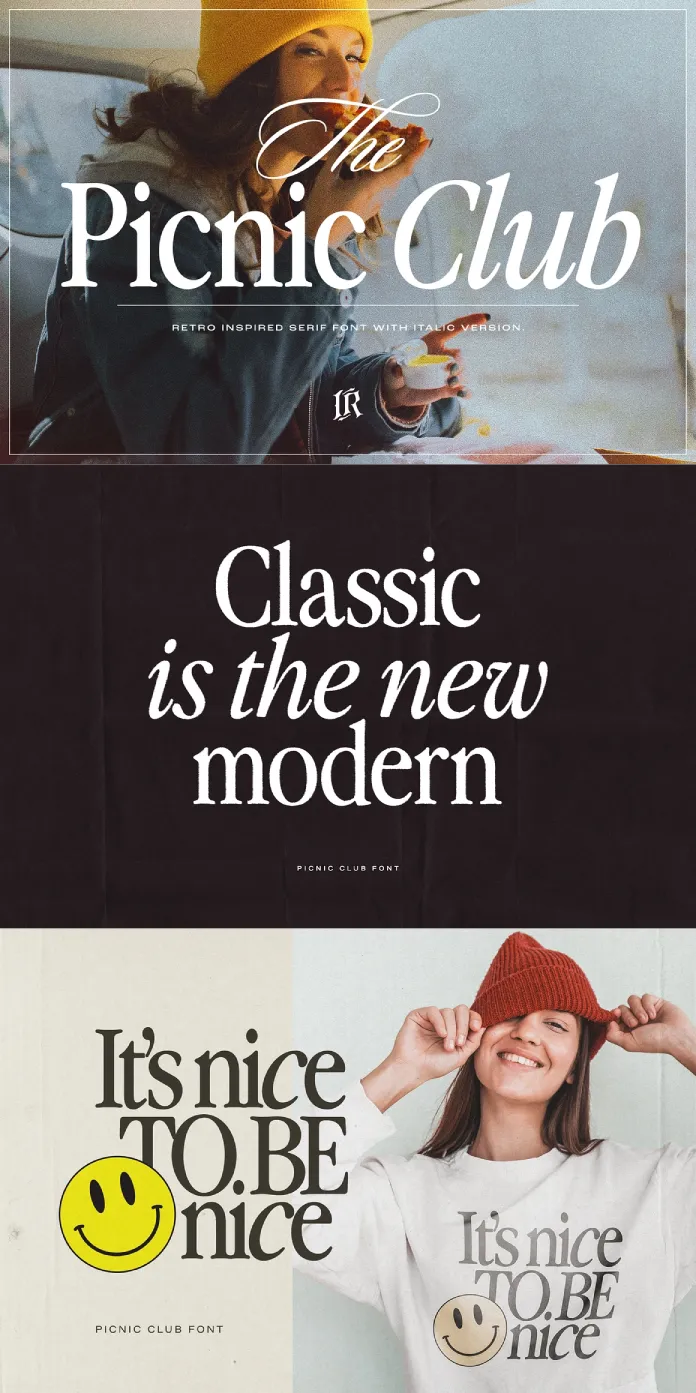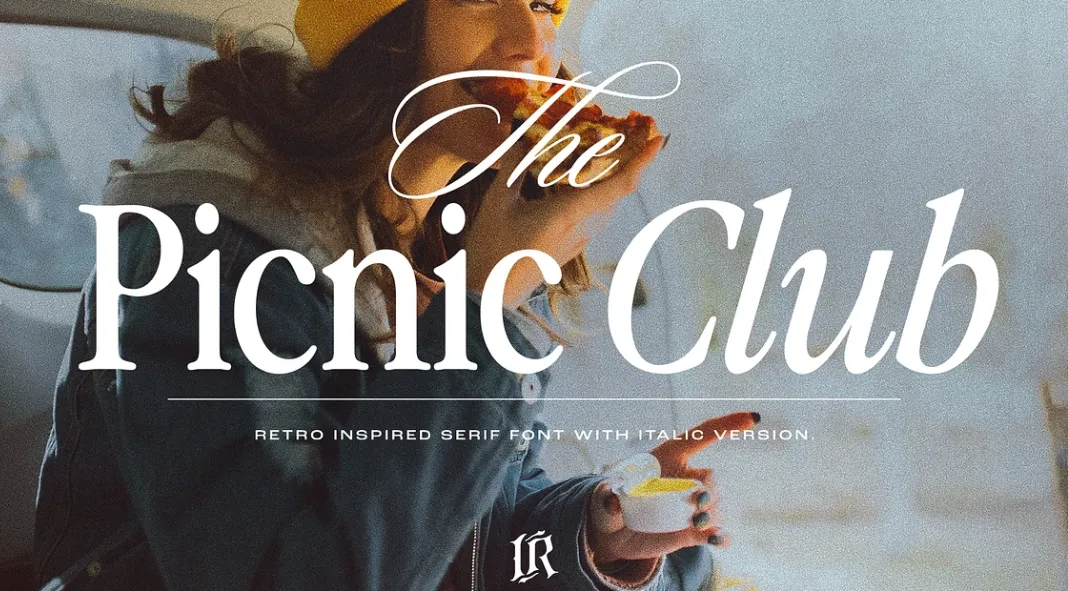
Let’s embrace nostalgia with Ivan Rosenberg’s Picnic Club font, a beautifully designed serif typeface.
Gosh, seriously, just look at this beautiful typeface! Designed by Ivan Rosenberg, the Picnic Club font is a beautiful homage to the vibe of the 1980s and 1990s. Rosenberg has combined it with a modern twist. This stylish vintage font stands out with its nostalgic charm and versatility. The Picnic Club is a fantastic choice for various design projects ranging from print to web.
What Makes Picnic Club Special?
- Retro Inspiration with a Modern Touch: Picnic Club captures the essence of the 80s and early 90s with its cool aesthetics while incorporating a touch of modernity. This blend creates a unique and timeless look.
- Two Versatile Versions: The font comes in two versions, Regular and Italic. Each version has its distinct personality, allowing you to choose the perfect style for your project. Whether you want a classic look or a more dynamic feel, this amazing typeface has you covered.
- Perfect for Display and Text Sizes: One of the standout features of the Picnic Club font is its readability. It looks amazing in large display sizes, making it ideal for headlines and titles. At the same time, it’s easily readable in smaller text sizes, ensuring your message is clear and engaging.
Ideal Uses for Picnic Club
- Headlines and Titles: The Picnic Club font is a display typeface designed primarily for headlines, titles, and other short texts. Its bold and stylish look ensures your headlines grab attention and make a statement.
- Advertising and Branding: This font is well-suited for advertising campaigns and branding projects. Its nostalgic yet contemporary vibe can help create memorable and impactful brand identities.
- Vintage Mood Boards: For those who want to create a vintage mood board, Picnic Club is also a great choice. Its retro charm will enhance the nostalgic feel of your design, that’s for sure.
- Logotypes and Packaging: Picnic Club’s distinct style is ideal for logotypes and packaging. It can add a touch of elegance and uniqueness to your products.
- Editorial Design: For editorial design projects, this serif typeface offers both style and readability. It can make your articles and features visually appealing while ensuring the text remains legible.
- Modern and Vintage Design Projects: Whether you’re working on a modern or vintage design project, Picnic Club’s versatile nature makes it a perfect fit. It can seamlessly blend into various design themes, adding a special touch to your work.
The Picnic Club font by Ivan Rosenberg is a great blend of retro and modern aesthetics. Its versatility and stylish appearance make it a must-have for those who want to create impactful and memorable designs.